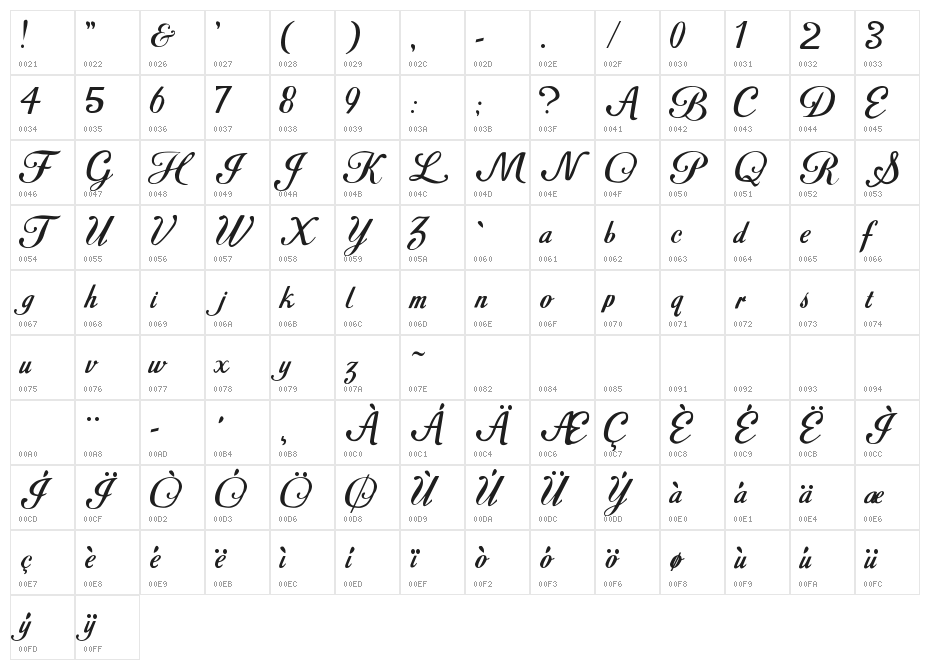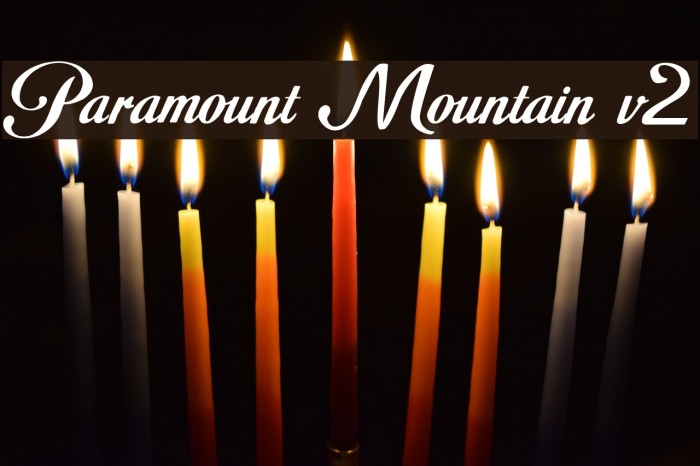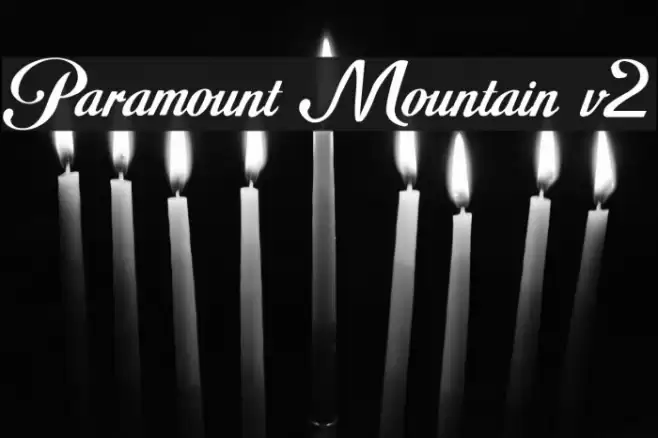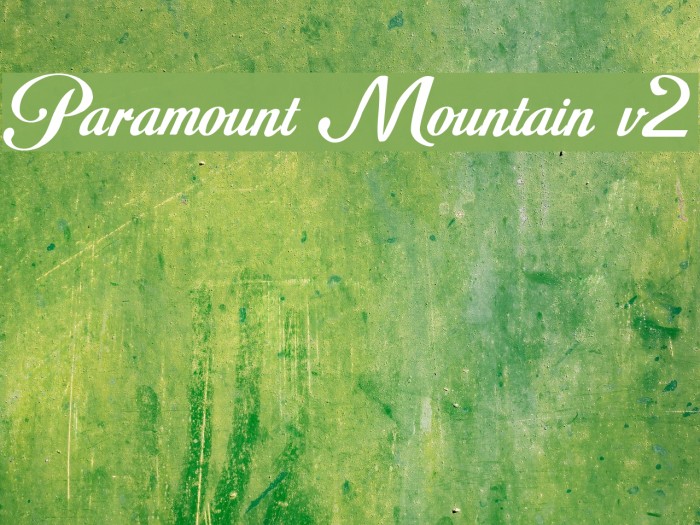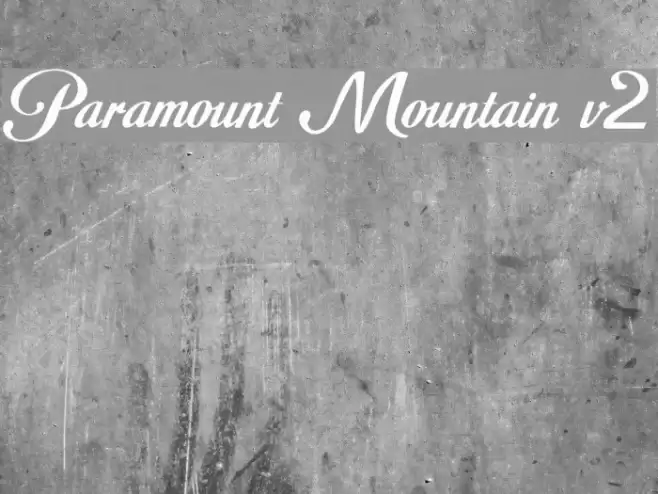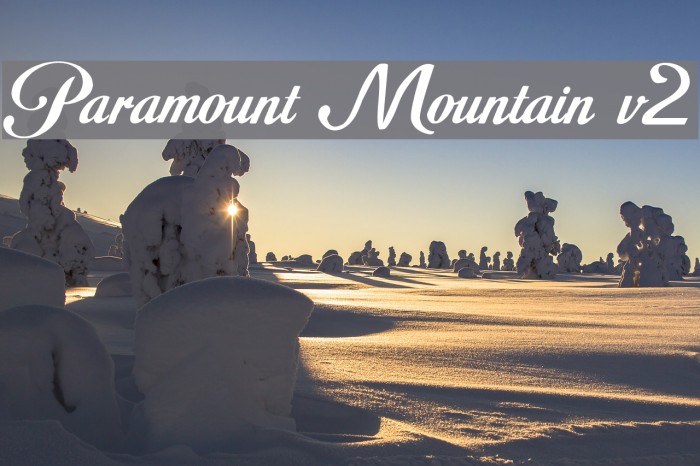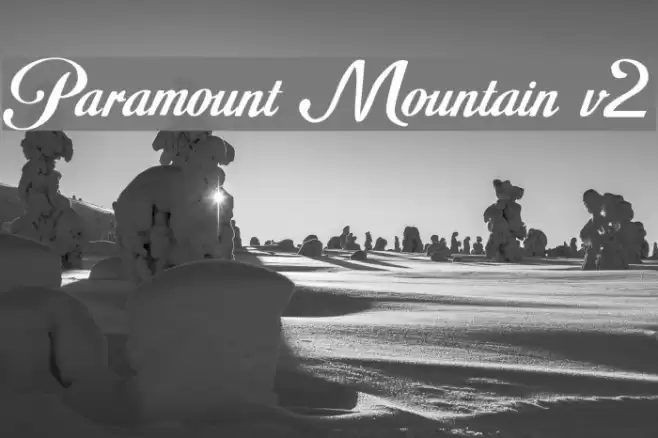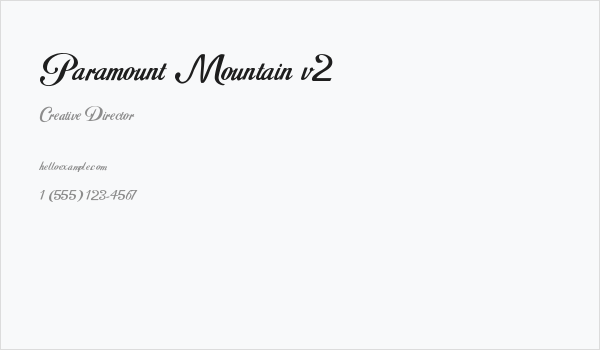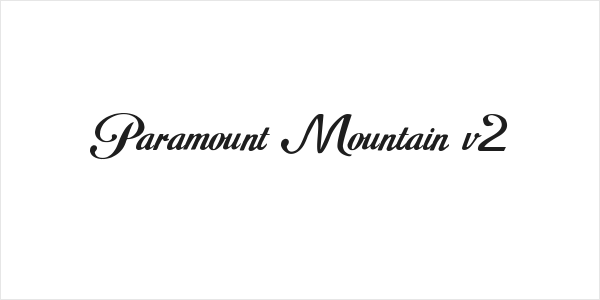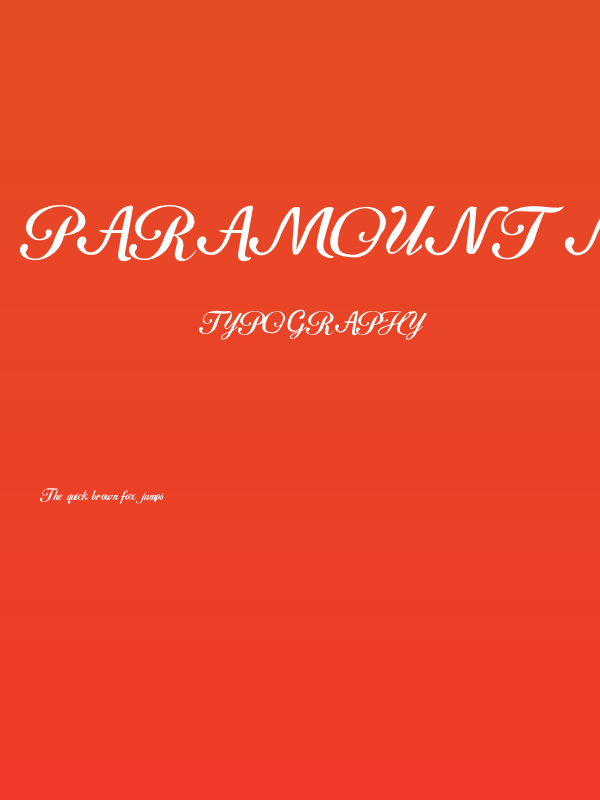
Paramount Mountain v2 Font
Paramount Mountain v2 Description
This font features an elegant script style with flowing, cursive letters that convey a sense of sophistication and grace. The uppercase letters are particularly ornate, with sweeping curves and flourishes that add a decorative touch. The lowercase letters maintain a consistent style, offering a smooth and connected appearance. The numerals are bold and slightly italicized, complementing the overall aesthetic. Special characters are designed with the same attention to detail, ensuring a cohesive look across all glyphs. This font is ideal for projects that require a touch of elegance and formality.
| Overall Style | Elegant, Formal |
| Proposed Projects | Wedding invitations, luxury branding, elegant packaging, formal event programs. |